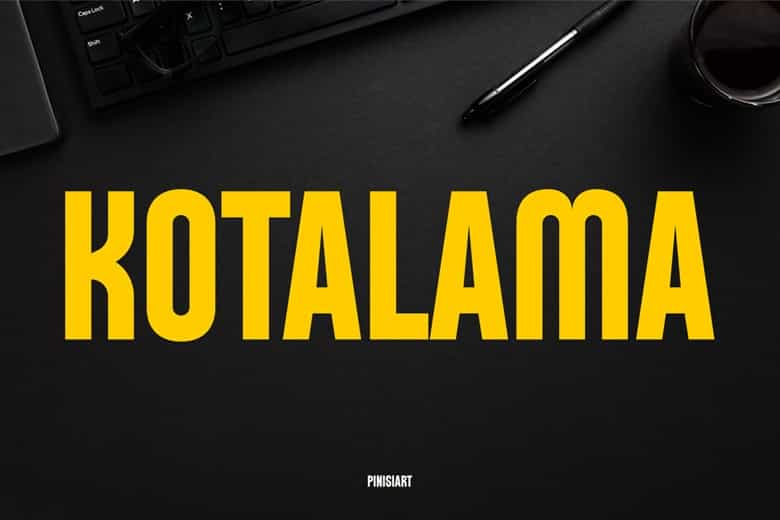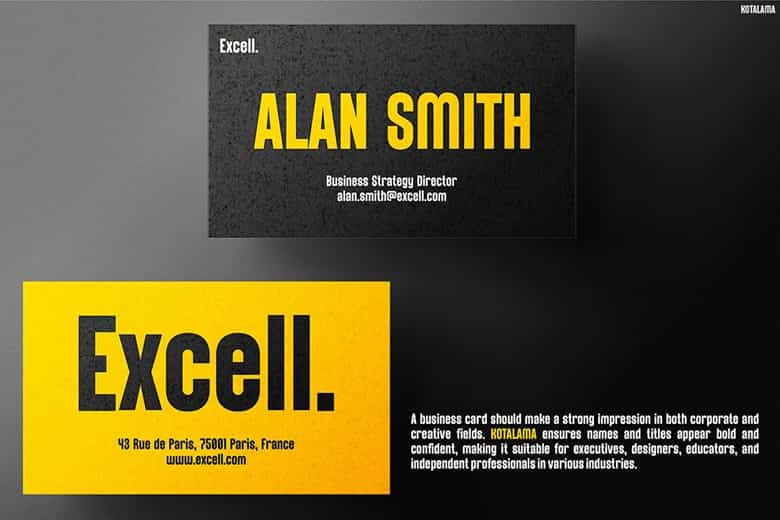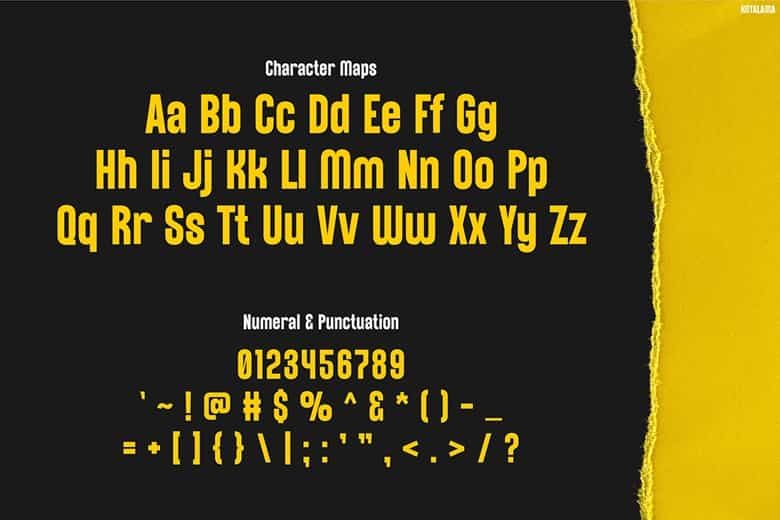
Kotalama is a grotesque sans-serif typeface that can be categorized as modern and nostalgic at the same time. It carries the geometric features in the letterforms, but it has good proportions which make the typeface to look attractive for a wide are as of uses. Therefore, it becomes not only the font but also the statement of Kotalama.